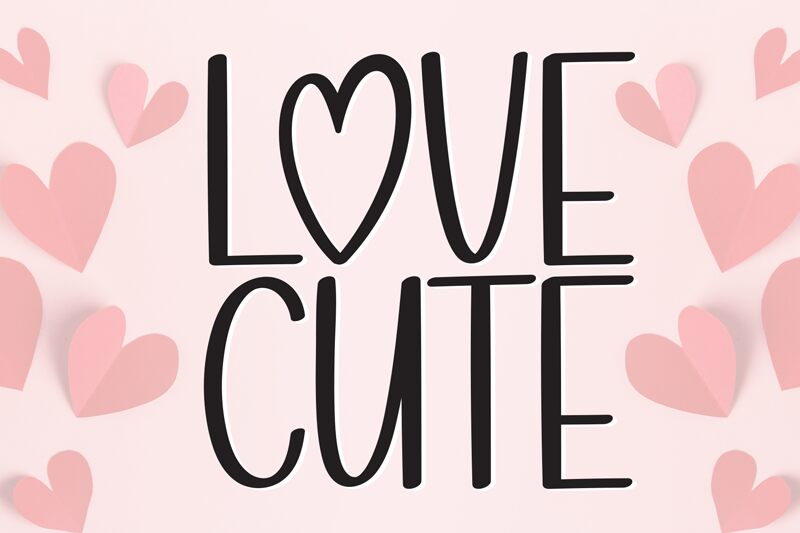
Love Cute
Love Cute font is a free handwritten font designed by Scratchones. Its condensed style creates a relaxed and friendly feel with each character, making it approachable and casual. The font has a cute and mellow overall appearance suitable for both kids’ projects and adult ones.
A few ways to use this typeface include book covers, birthday cards, apparel design, comic books or websites, invitation cards, posters. You can also customize your store menu with this gorgeous written style which would instantly brighten up your customers’ day.